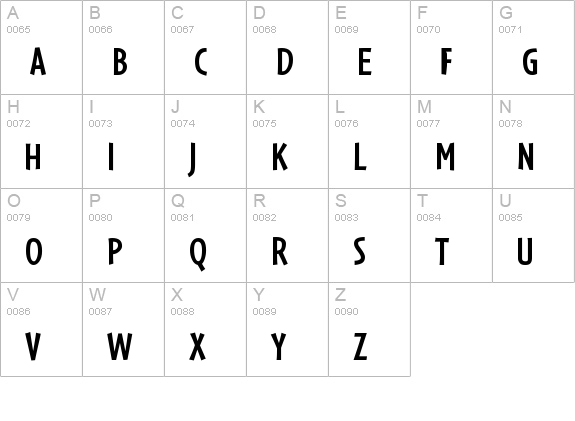
CafeteriaBold Font Details
Introducing CafeteriaBold font, a bold and captivating typeface that will add a touch of modernity and personality to any design project. This versatile font exudes confidence and style, making it perfect for eye-catching headlines, posters, logos, and more. With its strong and bold letterforms, CafeteriaBold commands attention and leaves a lasting impression. Each character is meticulously crafted to ensure legibility and readability, even at smaller sizes. The clean lines and balanced spacing create a harmonious rhythm that effortlessly guides the reader's eye across the page. One of the standout features of CafeteriaBold is its versatility. Whether you're designing for print or digital media, this font adapts seamlessly to any context. It effortlessly captures the essence of contemporary design, making it a perfect choice for branding, packaging, and advertising campaigns. And the best part? CafeteriaBold is available for free download at FontsMarket.com. Yes, you read that right – this stunning font can be yours with just a few clicks. FontsMarket.com offers a wide range of high-quality fonts, and CafeteriaBold is no exception. Now, you can elevate your design projects without breaking the bank. So, why wait? Unlock your creative potential and make a bold statement with CafeteriaBold font. Download it for free at FontsMarket.com and let your imagination take flight. Whether you're a seasoned designer or just starting out, this font is sure to become an invaluable tool in your creative arsenal.